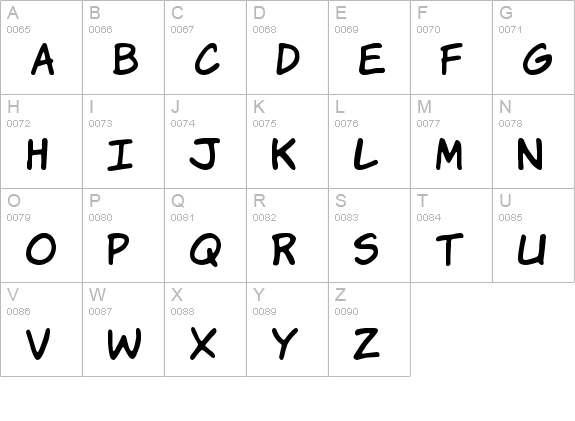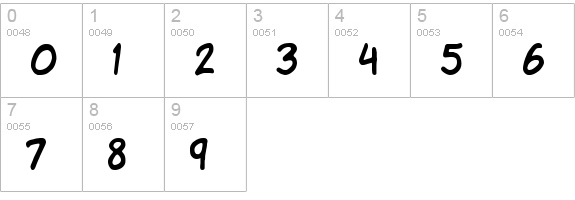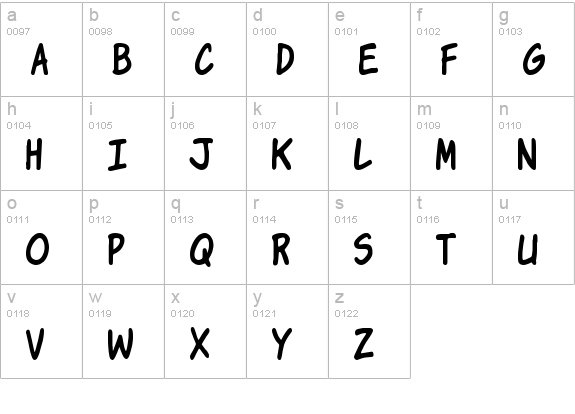
Komika Jam font is a playful and quirky typeface that adds a fun and energetic touch to any design. With its bold and unique characters, this font is perfect for creative projects, comic books, children's books, posters, and more. Its whimsical style and friendly appearance make it a versatile choice for a wide range of applications. The best part? Komika Jam font is available for free download at FontsMarket.com! Whether you're a designer looking to add some flair to your work or just someone who appreciates a good font, Komika Jam is sure to delight with its charm and character. Download it today and let your creativity shine with this delightful font.